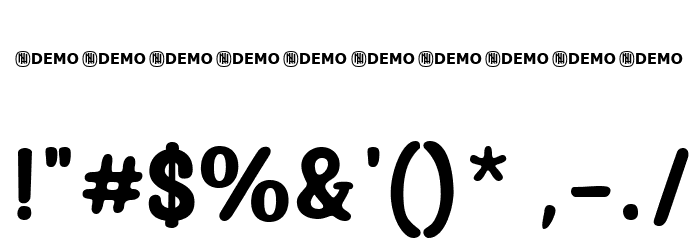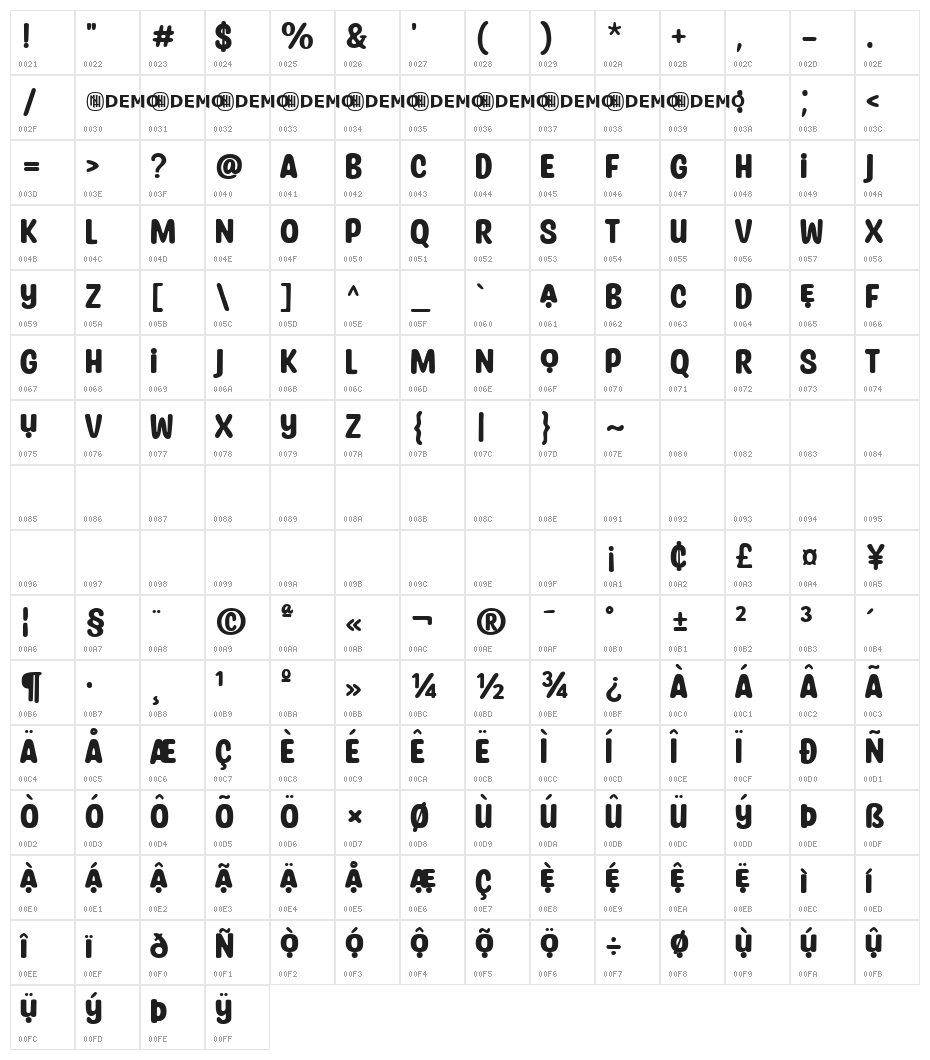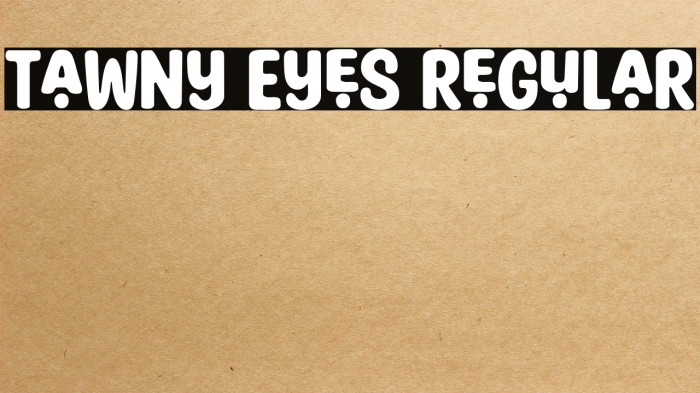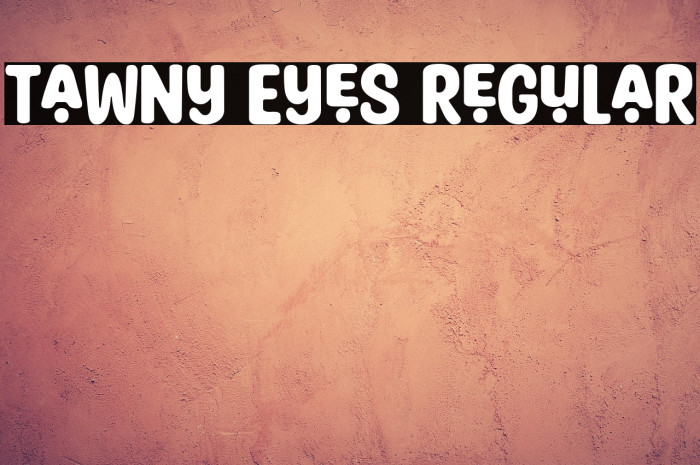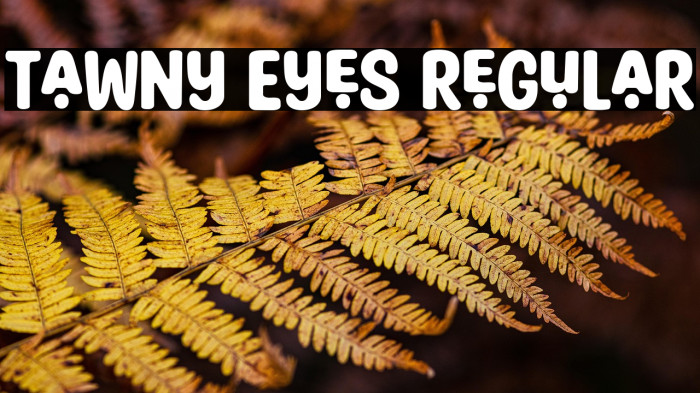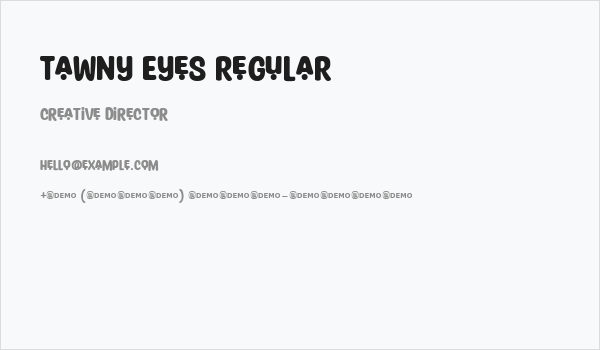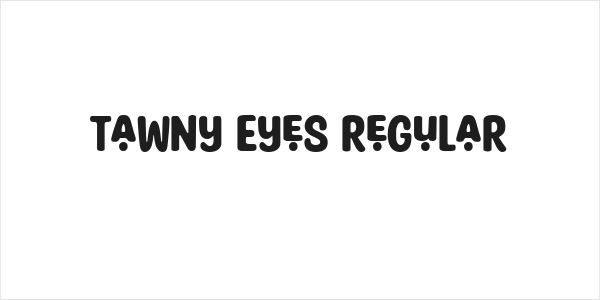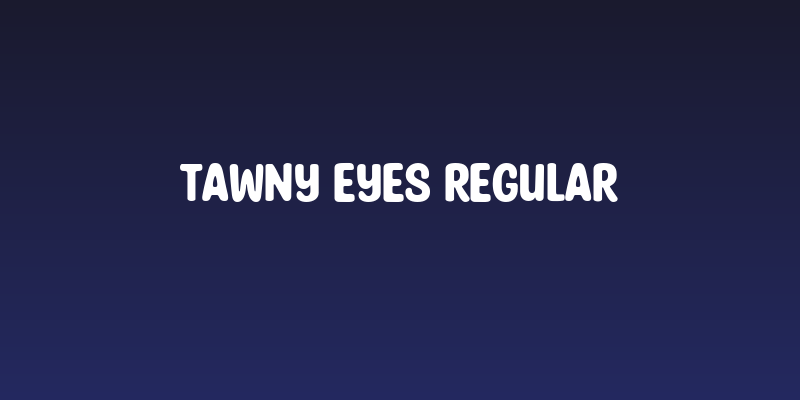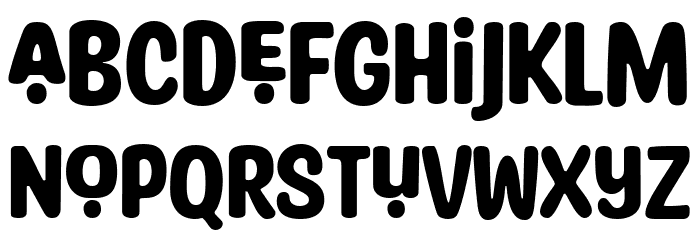
Tawny Eyes Regular Font
Tawny Eyes Regular Description
This font features a bold and playful style with rounded edges and a bubbly appearance. The characters are thick and uniform, providing a strong visual impact. The uppercase letters are consistent in height, while the lowercase letters maintain a similar width, creating a cohesive look. The numbers and special characters follow the same design principles, ensuring readability and a fun aesthetic. This font is ideal for projects that require a friendly and approachable feel, such as children's books, playful branding, or casual invitations.
| Overall Style | Playful, Modern |
| Proposed Projects | Children's books, playful branding, casual invitations, posters, and social media graphics. |